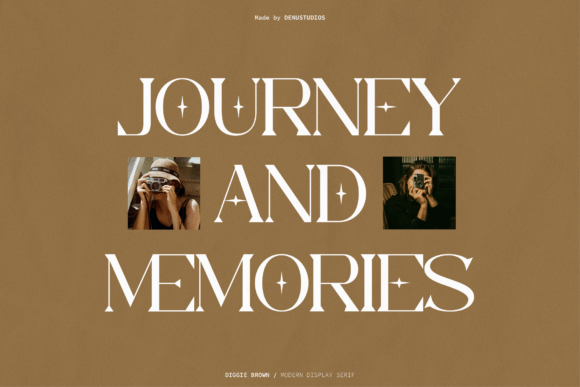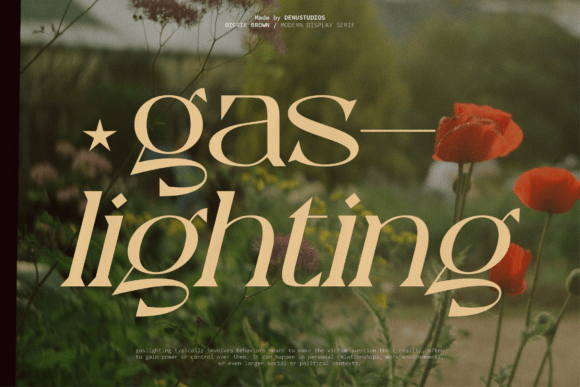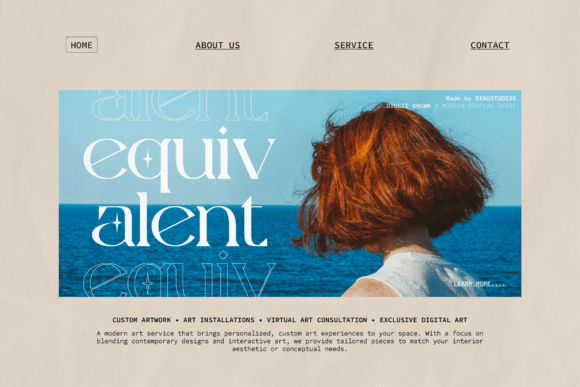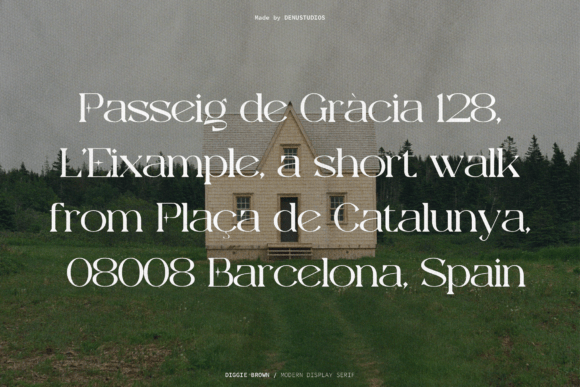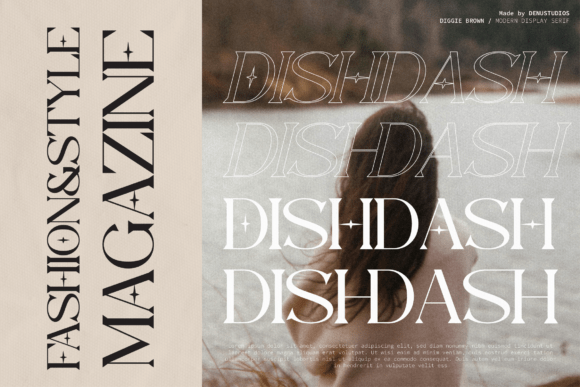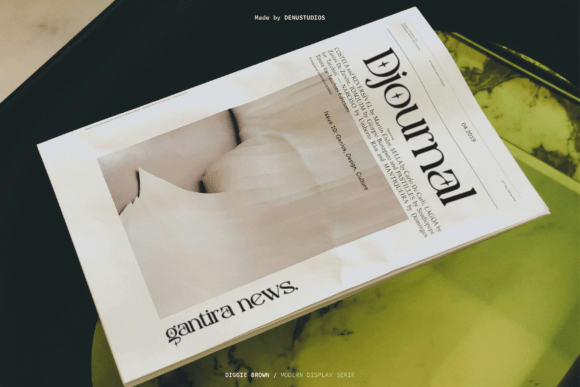
Introducing Diggie Brown Font: Elevate Your Designs with Classic Charm and Modern Flair
In the world of typography, a font can make all the difference in the success of a design project. For those seeking a blend of classic elegance and modern sophistication, the Diggie Brown Font is an exceptional choice. This stunning display serif font combines traditional charm with a unique ligature design, making it perfect for a wide range of applications, from elegant branding and wedding invitations to high-end fashion and editorial projects.
What Makes Diggie Brown Font Stand Out?
Diggie Brown is not just any font; it’s a meticulously crafted typeface that brings a touch of sophistication and refinement to any design. Here are some key features that make it stand out:
- Modern Display Serif Font: Diggie Brown boasts a contemporary design with the elegance of serif fonts, making it highly versatile for various design needs.
- Classic Charm and Unique Ligature Design: The font’s classic charm is enhanced by its unique ligature design, offering a distinctive look that can elevate any project.
- Extensive Glyph Set: With over 270 glyphs, Diggie Brown provides a wide range of characters, ensuring that you have ample options for creating detailed and nuanced designs.
- Multilingual Support: Catering to a global audience, the font offers multilingual support, making it suitable for projects targeting diverse linguistic groups.
The versatility of Diggie Brown Font makes it an ideal choice for numerous applications. Here are some of the areas where this font truly shines:
Elegant Branding
For brands aiming to convey luxury, sophistication, and a sense of heritage, Diggie Brown offers the perfect typographic solution. Its classic yet modern appeal can help brands stand out in a crowded marketplace.
Wedding Invitations and Event Stationery
The font’s elegant and refined appearance makes it a top pick for wedding invitations, save-the-date cards, and other event stationery. It sets the tone for a sophisticated and memorable event.
High-End Fashion
In the realm of high-end fashion, presentation is everything. Diggie Brown Font, with its luxurious feel, is perfect for fashion branding, magazine headers, and advertising materials, helping to convey a sense of exclusivity and style.
Editorial Projects
For editorial projects such as magazine and newspaper headers, book titles, and article sections, Diggie Brown offers a professional and stylish look that can enhance the reader’s experience.
Why Choose Diggie Brown Font?
Choosing a font for your design project can be overwhelming, given the numerous options available. Here are a few reasons why Diggie Brown Font should be at the top of your list:
- Unique and Memorable: Its distinctive ligature design and classic serif structure make it memorable and engaging.
- Versatile: Suitable for a wide range of projects, from digital platforms to print materials.
- Supportive: With multilingual support and over 270 glyphs, it caters to diverse design needs.
Diggie Brown Font is a remarkable typeface that brings together the best of classic design and modern typography. Its unique ligature design, extensive glyph set, and multilingual support make it an excellent choice for designers and crafters looking to add a touch of elegance and sophistication to their projects. Whether you’re working on elegant branding, wedding invitations, high-end fashion, or editorial projects, Diggie Brown Font is sure to elevate your designs to new heights.
Discover the possibilities with Diggie Brown Font and let your creativity shine with a typography that truly makes a statement.